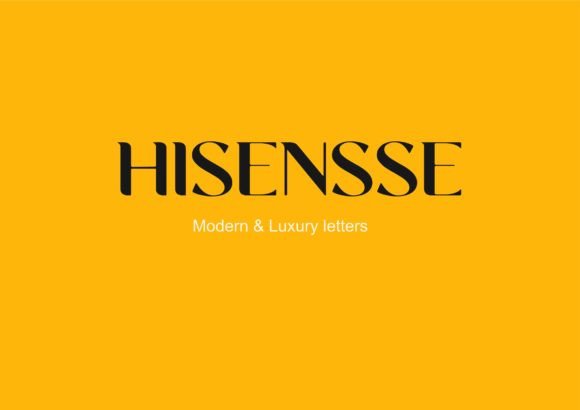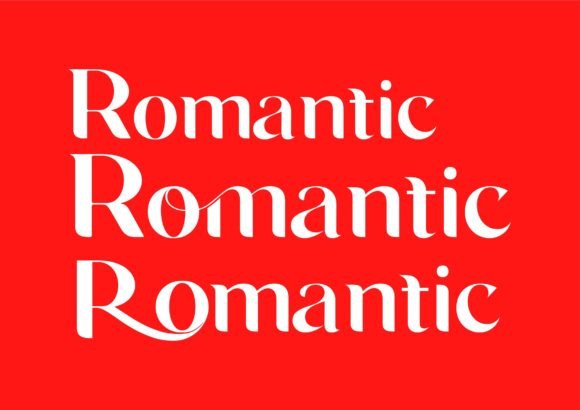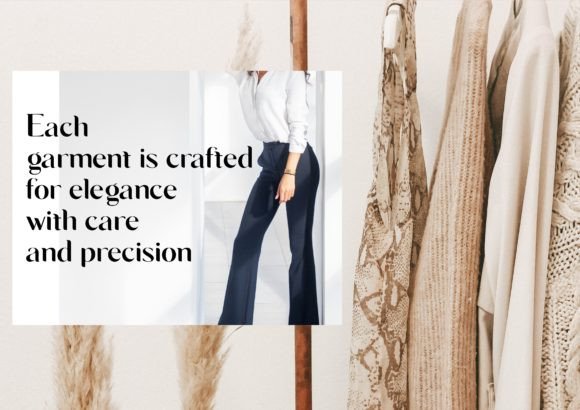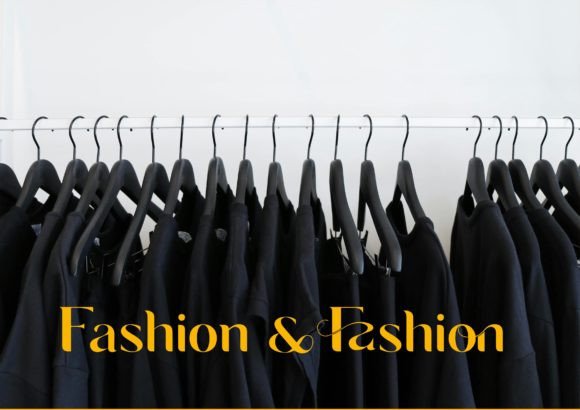
Introduction to Hisensse Font
Introducing Hisenses – a serif font that effortlessly melds the best of past and present design trends.
Poised between trendy sophistication and retro elegance, Hisenses represents the pinnacle of modern luxury This font embodies a perfect blend of classic and innovative aesthetics, making it a stellar choice for contemporary and upscale branding ventures.